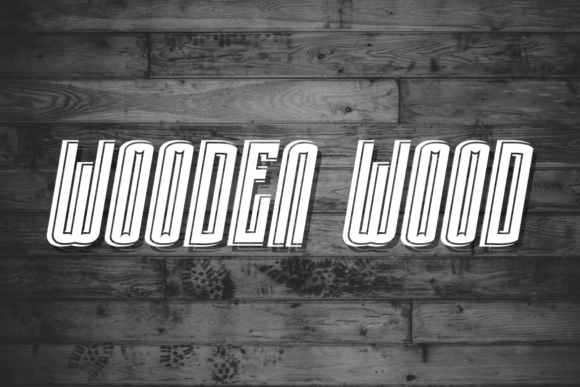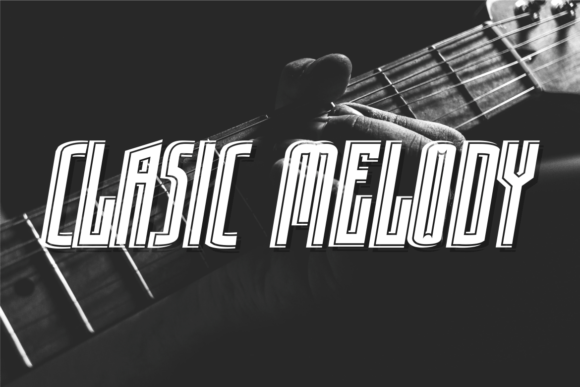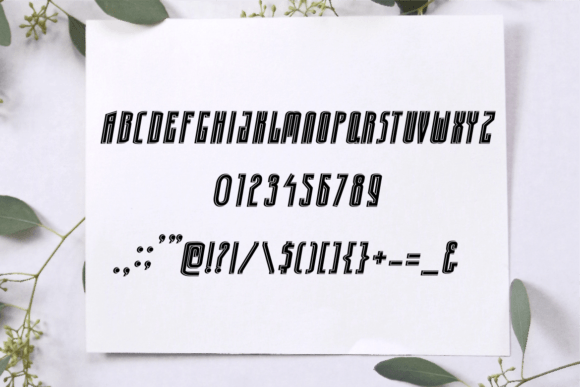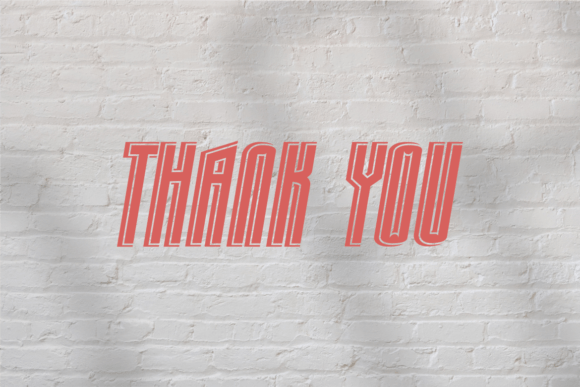
Introduction to Kefanofiz Ornament Font
Have you ever found yourself scrolling through your design files, searching for the perfect font to elevate your creative project? The struggle is real, but we’re here to help. As designers, we know how important it is to have a reliable design resource that delivers high-quality results every time. That’s why we’re excited to introduce you to the Kefanofiz Ornament Font, a modern and minimalist display font that’s about to become your new go-to.
With its sleek and contemporary look, the Kefanofiz Ornament Font is perfect for making a bold statement in your branding, editorial design, or any other creative project. Its clean lines and sharp angles create a stunning visual effect, especially when paired with a transparent background. And the best part? You can download it for free, making it an invaluable resource for designers of all levels.
Key Features of Kefanofiz Ornament Font
- Features a unique ornamental design with intricate details and patterns, perfect for adding a touch of elegance to your designs
- Comes in a single font size, making it easy to use across various design projects and applications
- Suitable for use in a variety of design contexts, including digital art, graphic design, and print materials
Honest Review: Kefanofiz Ornament Font
I recently stumbled upon the Kefanofiz Ornament Font, and I must say, it’s been a game-changer for my design projects. As a designer, I’m always on the lookout for high-quality design resources that can elevate my work, and this font definitely delivers.
One of the standout features of the Kefanofiz Ornament Font is its transparent background, which makes it incredibly versatile and easy to use. I’ve been able to incorporate it into a variety of creative projects, from digital art to print designs.
Here are some of the things that work well with the Kefanofiz Ornament Font:
- ✨ High-quality design that looks professional and polished
- ✨ Transparent background for easy layering and manipulation
However, I do have a few minor complaints:
- ⚠️ Limited character set, which can make it difficult to use for extended text
- ⚠️ May not be suitable for small text sizes, as it can become difficult to read
Overall, I’m really impressed with the Kefanofiz Ornament Font, and I think it’s a great addition to any designer’s toolkit. It’s a great resource for anyone looking to add a touch of elegance and sophistication to their creative projects.
Tips for Getting the Most Out of Kefanofiz Ornament Font
For the best results, use the Kefanofiz Ornament Font in conjunction with other creative elements, such as illustrations and graphics. You can also experiment with different font sizes and colors to create a unique look.
The Kefanofiz Ornament Font is ideal for various design projects, including:
- Wedding invitations
- Party decorations
- Menu designs